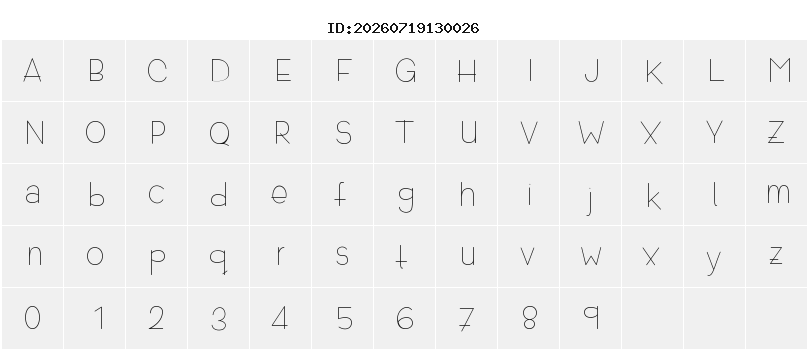
About Clover.ttf
Clover.ttf is a modern, elegant sans-serif font designed for ultimate readability and visual harmony. Perfect for branding, headlines, web design, and print materials.